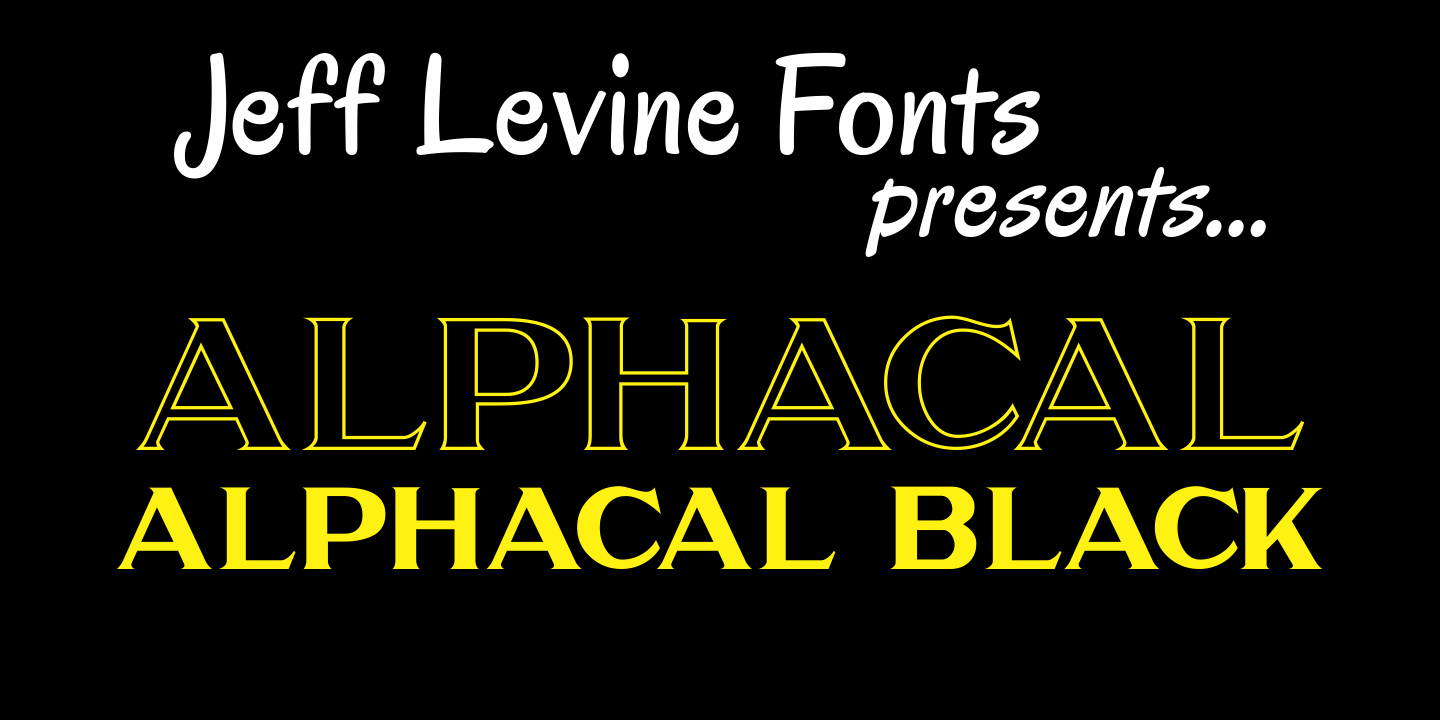
Alphacal
Alphacal JNL and Alphacal Black JNL were modeled from vintage water-applied decals once made by the (now defunct) Duro Decal Company of Chicago.